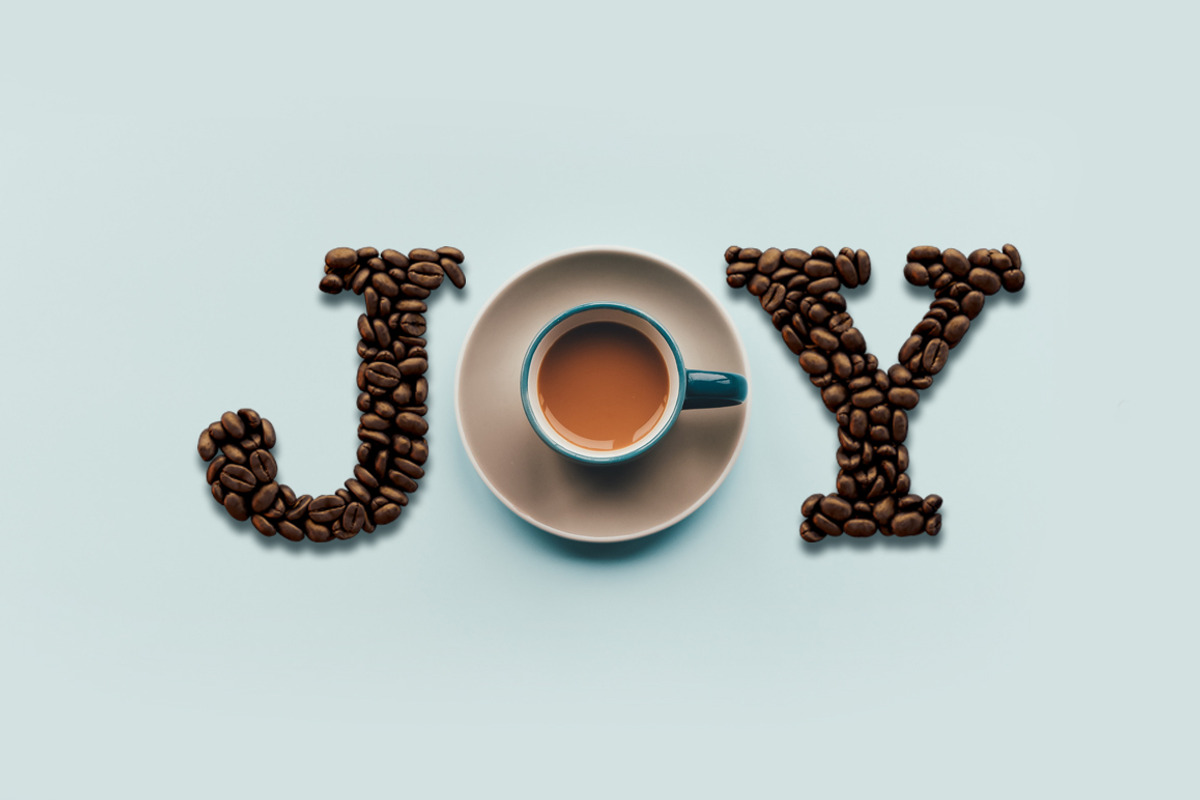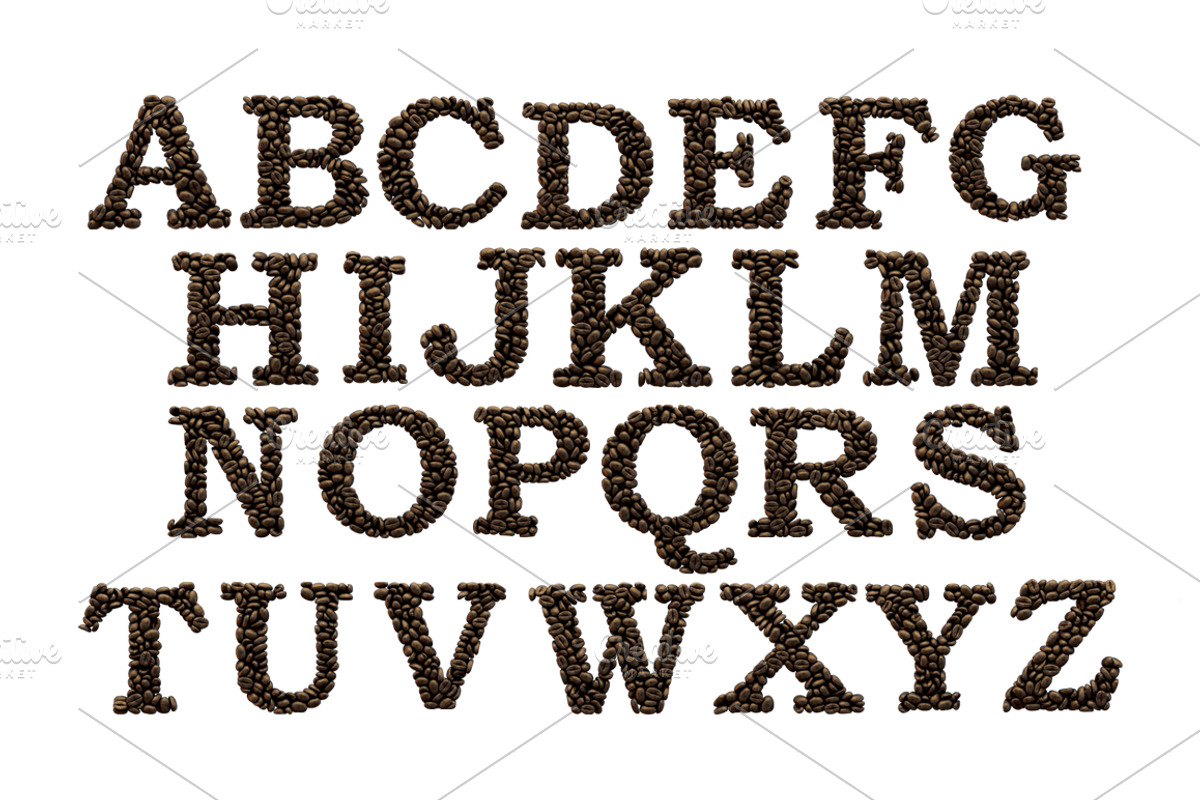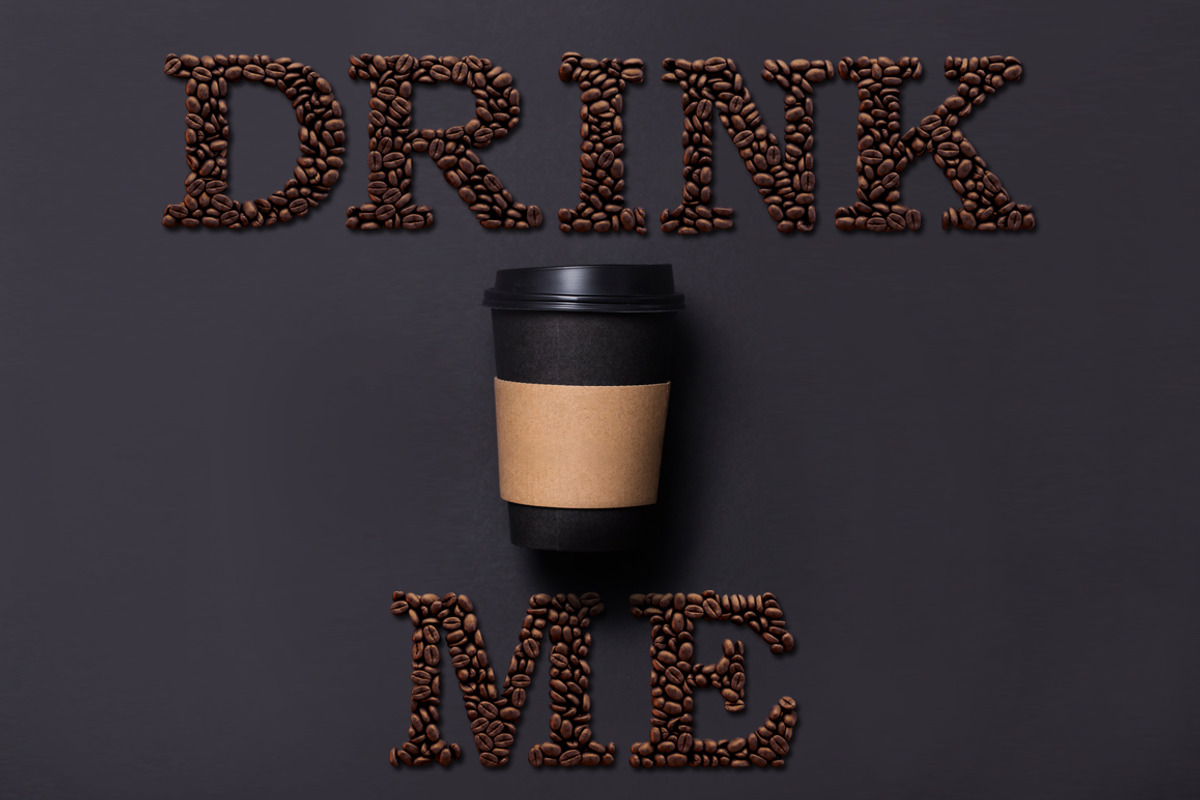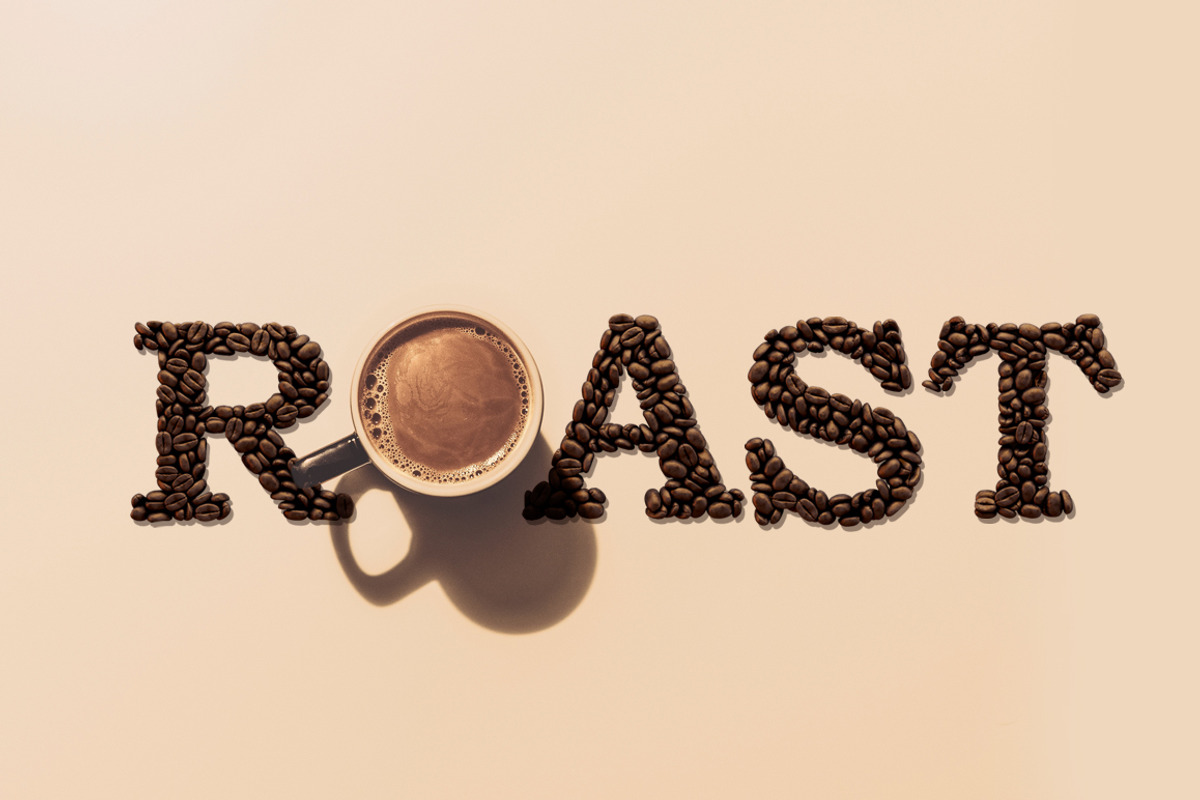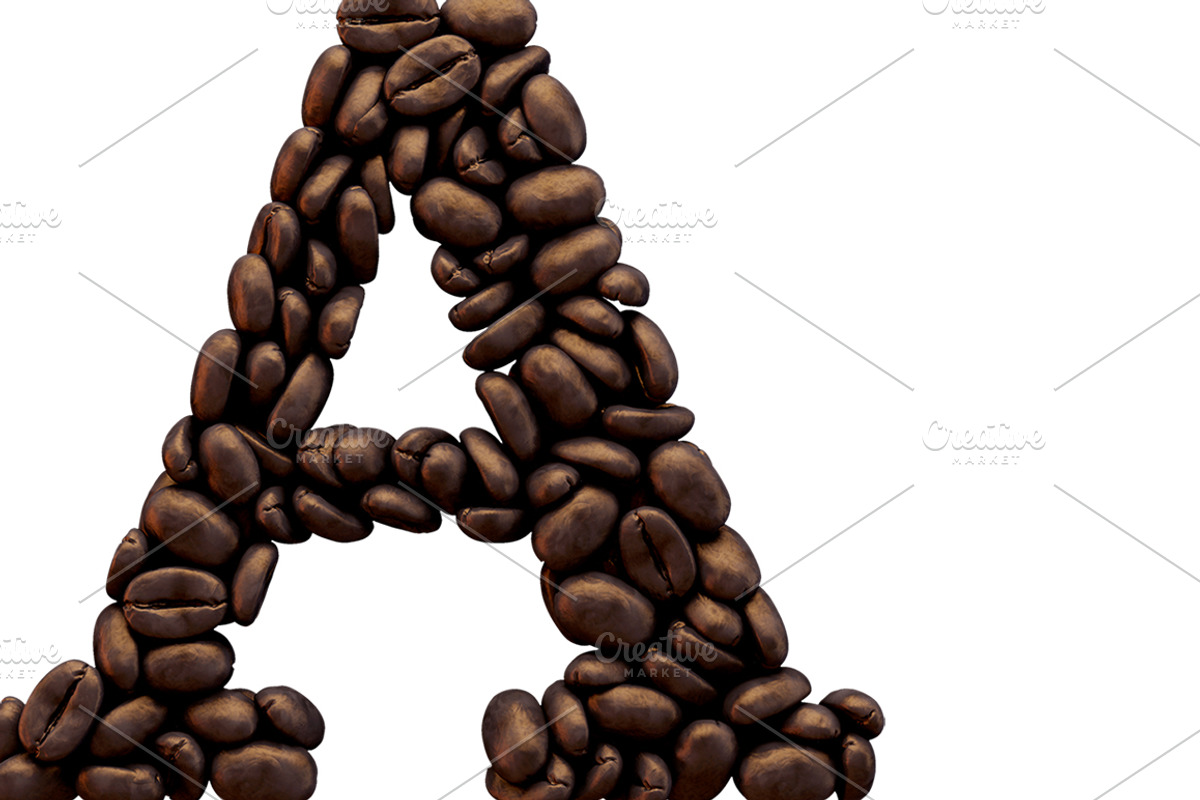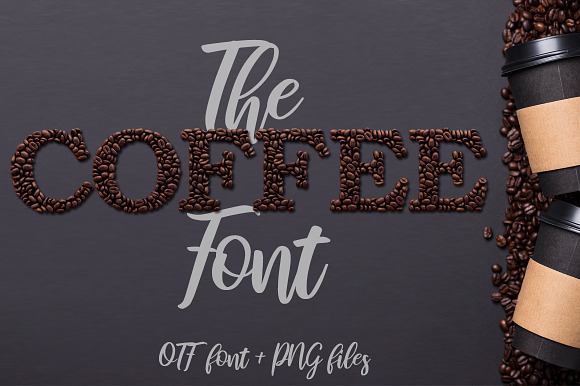
Coffee - OTF colour font + Extras
Coffee is a colour OTF font. Each letter has been created in 3D then turned into a simple to use font. Just download and start typing in beautiful coffee bean lettering. Download also includes PNG files for every letter.